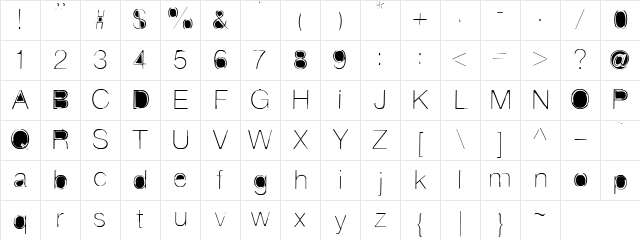
Design Context for stickfig
stickfig is a composed and adaptable typeface that performs quietly and consistently across a wide range of design contexts.